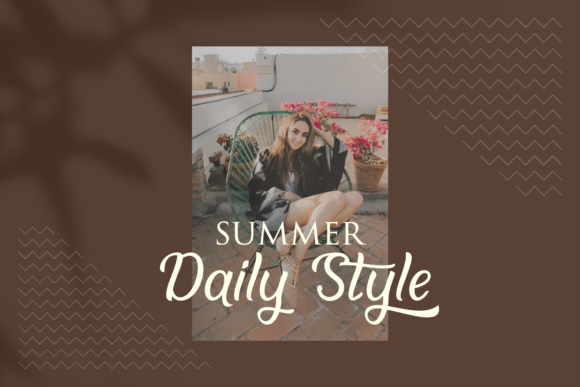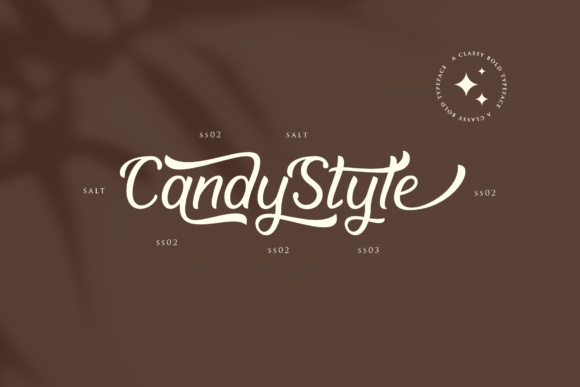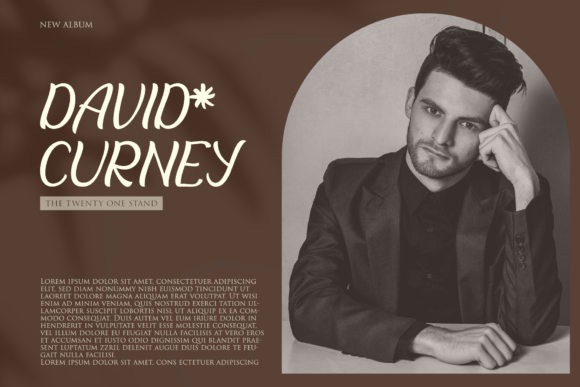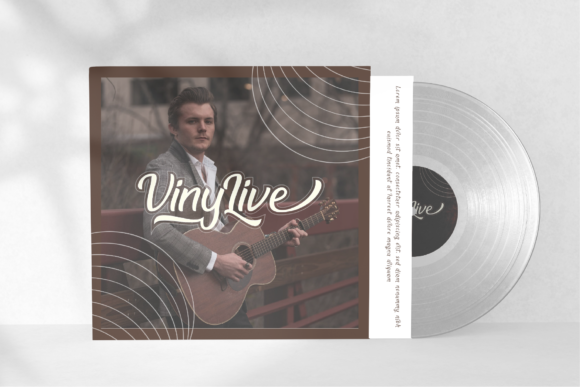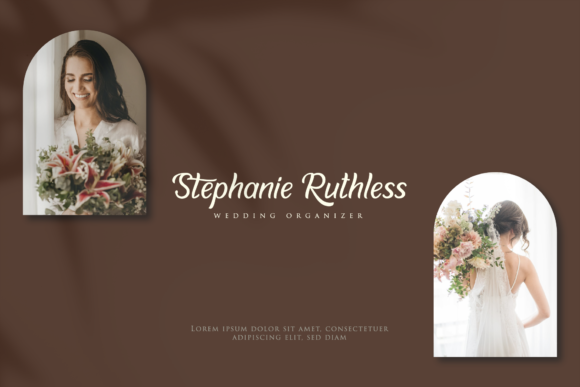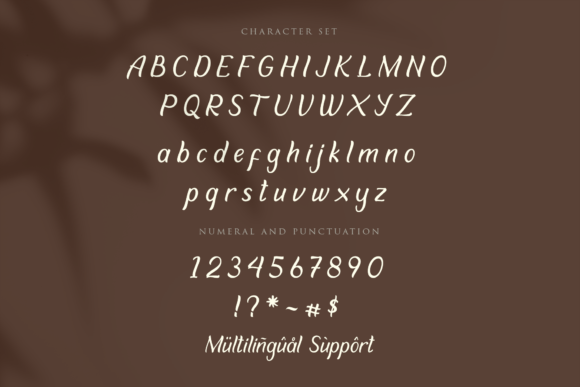
Introducing Asthan Font: Elevate Your Designs with Elegance and Sophistication
In the world of typography, fonts play a crucial role in conveying the tone and aesthetic of a design. For designers and crafters seeking to add a touch of vintage charm and delicacy to their projects, Asthan Font is an exceptional choice. This classic, elegant, and unique script font is designed to bring a level of sophistication and refinement to any design endeavor.
What Makes Asthan Font Stand Out?
Asthan Font is distinguished by its beautiful, flowing script that exudes elegance and poise. Its classic design ensures that it remains timeless, making it suitable for a wide range of applications, from traditional to modern projects. Whether you’re working on wedding invitations, branding materials, packaging, or digital content, Asthan Font can add a unique and sophisticated flair.
PUA Encoding for Ease of Use
One of the key features that set Asthan Font apart is its PUA (Private Use Area) encoding. This means that users can access all the glyphs and swashes easily, allowing for greater flexibility and creativity in design. PUA encoding enables designers to explore a wide range of typographic variations without the need for complex software or technical expertise. With Asthan Font, you can effortlessly incorporate intricate details and flourishes into your designs, elevating them to a new level of visual appeal.
Adding a Vintage and Delicate Spark to Your Designs
Asthan Font’s vintage charm and delicate appearance make it an ideal choice for designers looking to infuse their projects with a sense of nostalgia and romance. The font’s elegant strokes and beautiful swashes can transform any design into a stunning piece of art. Whether you’re aiming for a luxurious, high-end look or a soft, feminine aesthetic, Asthan Font provides the perfect foundation.
Applications of Asthan Font
The versatility of Asthan Font makes it suitable for a variety of design projects, including:
- Wedding and Event Stationery: Create beautiful wedding invitations, save-the-date cards, and event banners that set the tone for a memorable occasion.
- Branding and Packaging: Add a touch of elegance to your brand’s identity and packaging, making your products stand out on store shelves.
- Digital Content: Enhance your website, blog, or social media graphics with Asthan Font, providing a cohesive and sophisticated visual experience.
- Paper Crafts and Scrapbooking: Incorporate Asthan Font into your paper crafts and scrapbooking projects for a personalized and artistic touch.
Tips for Using Asthan Font Effectively
To maximize the impact of Asthan Font in your designs, consider the following tips:
- Pair with Complementary Fonts: Combine Asthan Font with simple, sans-serif fonts to create a striking contrast and highlight the elegance of the script font.
- Experiment with Swashes: Take advantage of Asthan Font’s swashes to add flair and personality to your designs.
- Adjust Size and Color: Play with the size and color of Asthan Font to achieve the desired visual hierarchy and aesthetic.
Asthan Font is a beautiful, elegant script font that offers designers and crafters a unique opportunity to add vintage charm and sophistication to their projects. With its PUA encoding, beautiful glyphs, and swashes, Asthan Font is an excellent choice for anyone looking to elevate their designs. Whether you’re working on a wedding invitation, branding materials, or digital content, Asthan Font is sure to make your designs shine with elegance and poise.